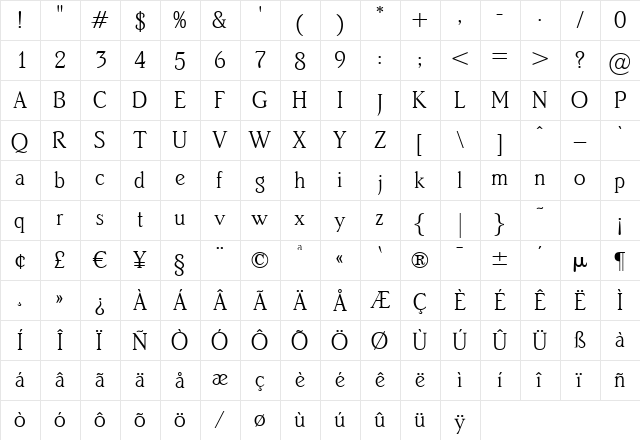
B820-Roman Regular
Design Context for B820-Roman Typeface
B820-Roman offers clean, dependable letterforms without strong stylistic allegiance, making it a practical choice for designers who need flexibility.